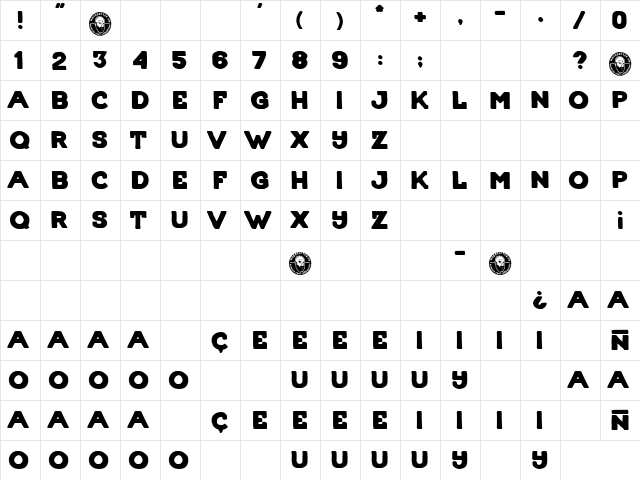
Poster Queen Regular
| Designer | Woodcutter Manero |
Design Context for Poster Queen Typeface
Poster Queen is a composed and adaptable typeface that performs quietly and consistently across a wide range of design contexts.